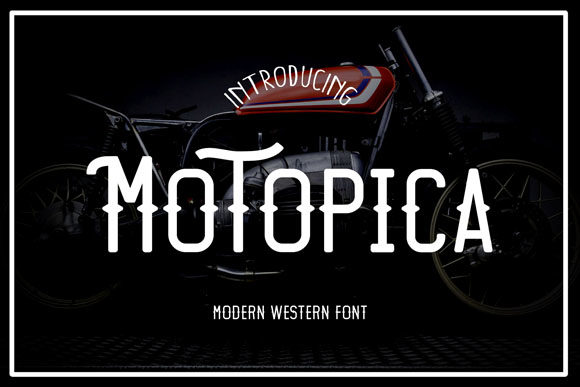
Roam the vibrant world of vintage aesthetics with Motopica Font, a modern-day spin on the classic sans serif style. Anomali.bisu's spirited creation breathes new life into the digital landscape, inviting you to embark on a journey of individuality and artistic excellence.
Dive into a realm where retro charm meets contemporary flair. Motopica Font's meticulously crafted characters exude a vibrant energy, ready to ignite your designs with a touch of nostalgia. Let your imaginations run wild as you witness ordinary concepts transformed into captivating masterpieces. Experience the thrill of bringing traditional aesthetics into the modern era.
With Motopica Font as your creative ally, you'll possess the power to evoke emotions, tell stories, and forge connections through the medium of typography. Its dynamic personality shines through in every curve and stroke, capturing the essence of boundless creativity and timeless elegance.
Unleash your passion for self-expression with Motopica Font. Embrace the allure of vintage aesthetics while reveling in the liberating embrace of modernity. Elevate your designs to dizzying heights, leaving an indelible mark on the world of visual communication.
Take a bold step into the world of vintage-inspired brilliance. Embrace the creative potential of Motopica Font and witness the transformation of your designs into unforgettable expressions of artistry.